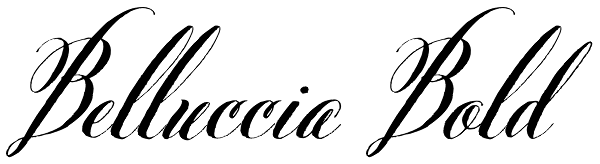
Belluccia Bold
What’s unique about the Belluccia font family (now in both Regular & Bold weights) is the ability to turn on various features (Ligatures, Stylistic Alternates, Contextual Alternates, Swashes, Old Style Figures) to auto-magically swap out letter sets...
Belluccia Bold
Belluccia Contextual Bold
Belluccia Stylistic Bold
Belluccia Swashes Bold
Belluccia Pro Bold